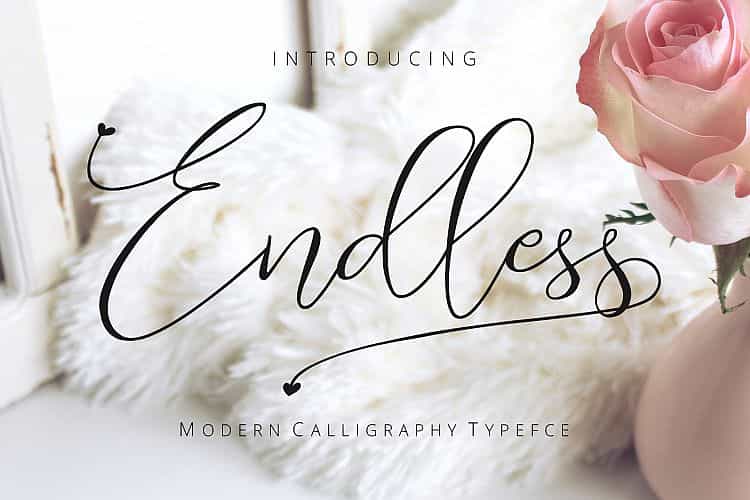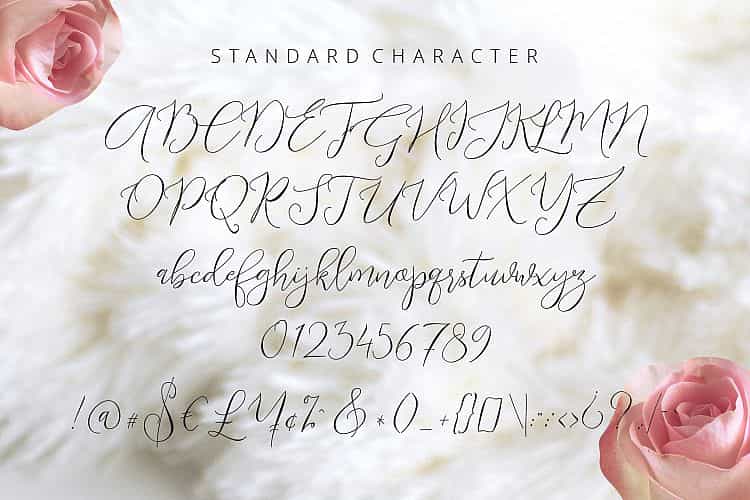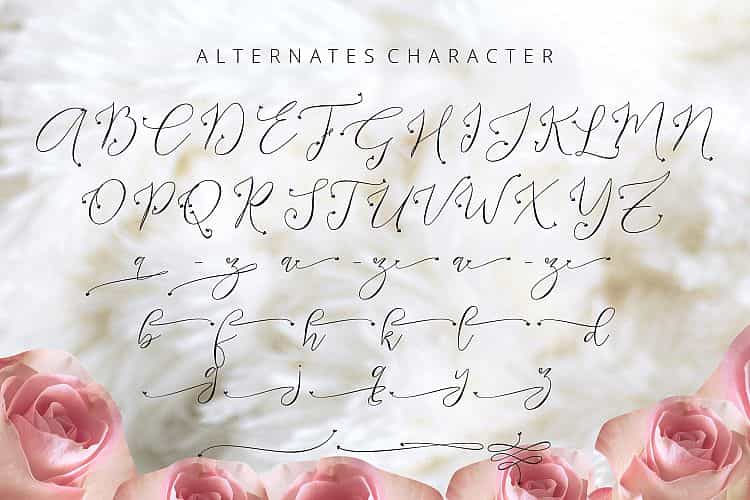
Discover Endless Script Font, part of the Calligraphy collection—a versatile and unique font perfect for adding a personal touch to your projects. Download it for free and enjoy crafting designs with style, from invitations to social media posts. This font is available exclusively for personal use, giving you the freedom to create without limits. Unlock your creativity with Endless Script Font today!
Meet Endless Font – A brand-new by hand summer loving calligraphy font. It was created and is now used by Bonjour Type. Endless Script Font is a feminine font with a modern script style, this font will be perfect for many different projects: These are the things you can use he handwriting font for; quotes, blog headers, watermarks, posters, weddings invitations and photography logos.